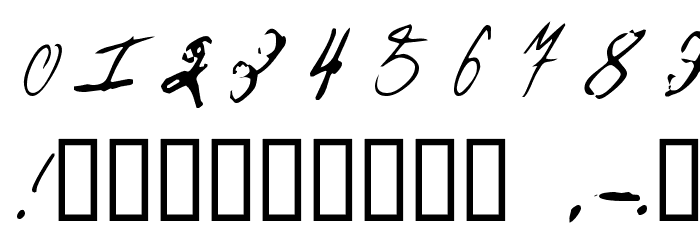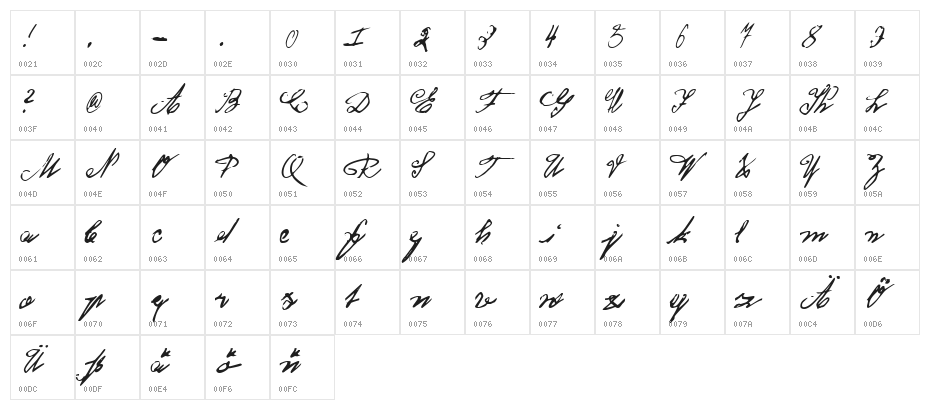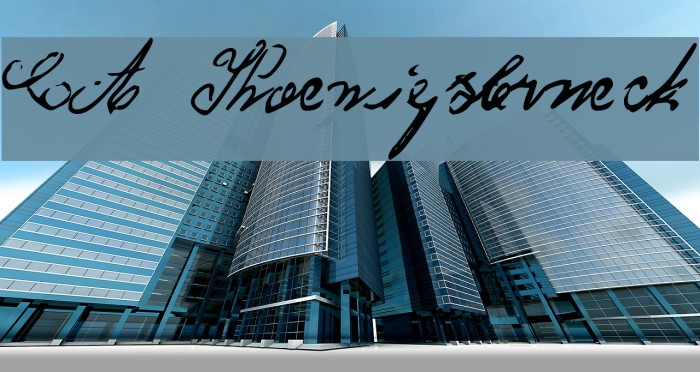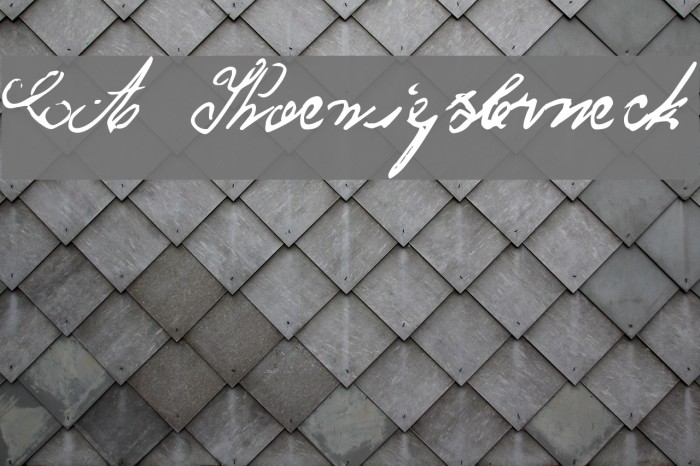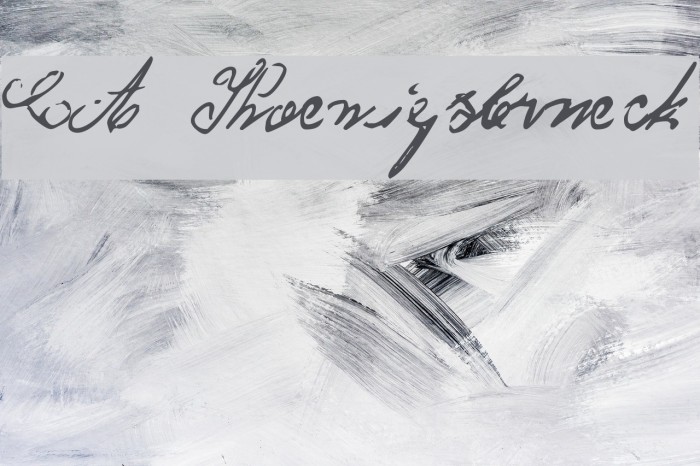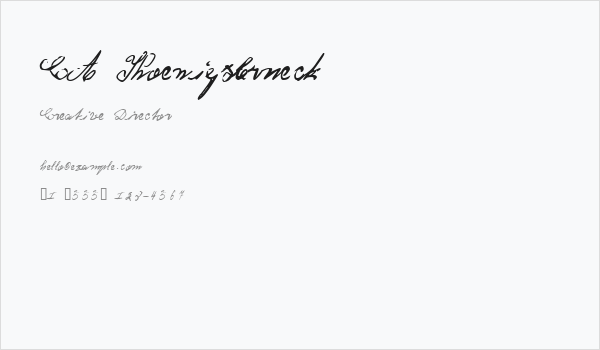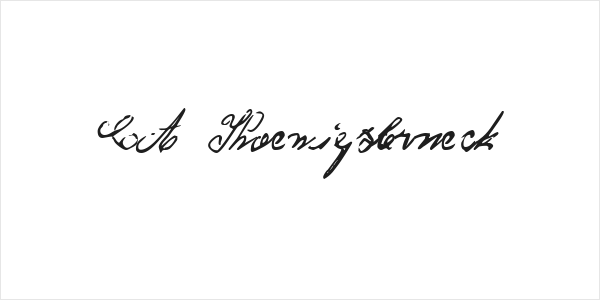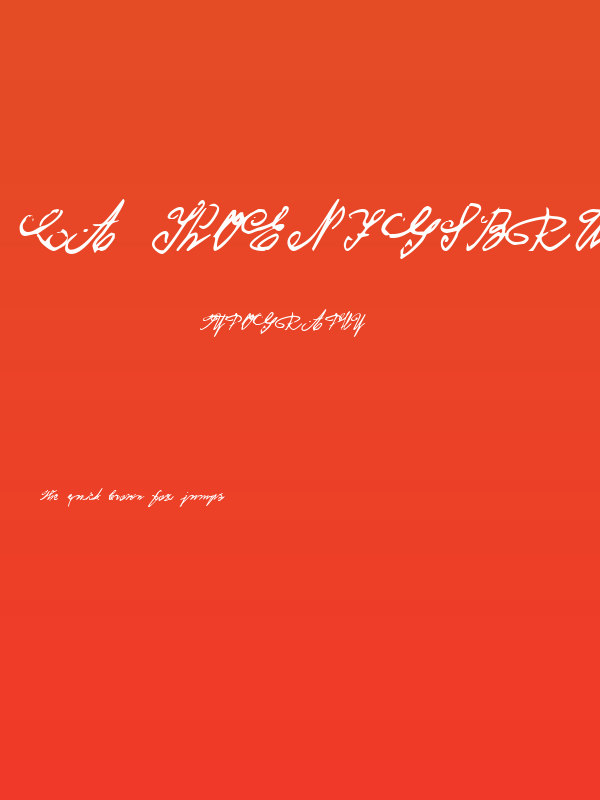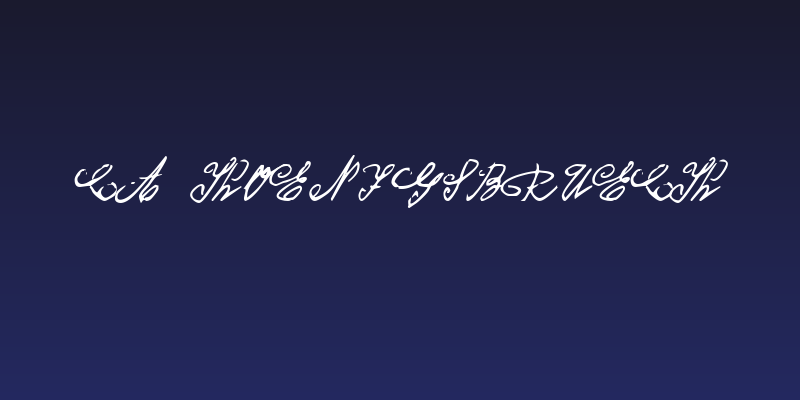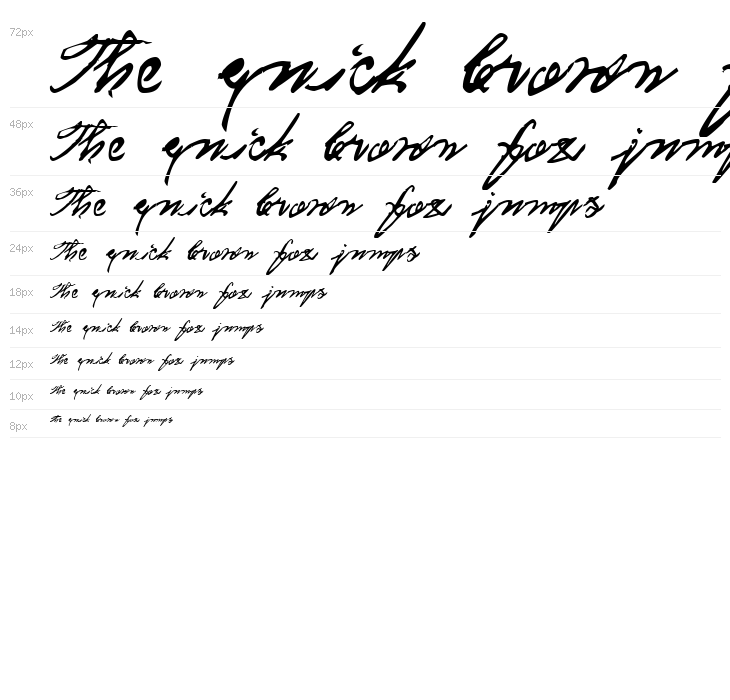
CA Koenigsbrueck Font
CA Koenigsbrueck Description
This font exudes a classic and elegant script style, reminiscent of traditional calligraphy. The characters are fluid and connected, with graceful loops and swirls that give it a sophisticated and artistic appearance. The uppercase letters are particularly ornate, featuring elaborate flourishes that enhance their visual appeal. The lowercase letters maintain a consistent flow, making the text appear seamless and continuous. Numbers are styled to match the cursive nature, maintaining the overall aesthetic. This font is ideal for projects that require a touch of elegance and refinement.